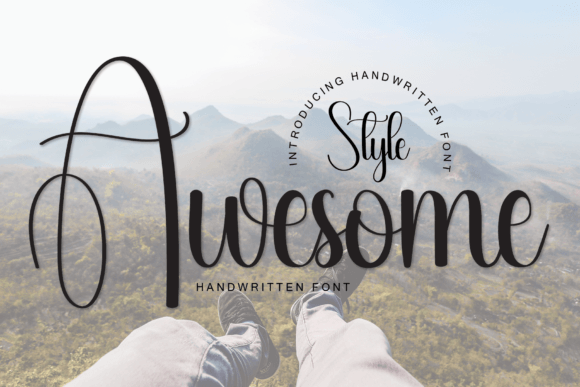
Say hello to 'Awesome Font,' the script font that will add instant charm to your designs. With its neat and casual handwritten style, this font is a perfect fit for those looking to capture a personal and authentic touch in their creative endeavors.
Dive into a world of endless possibilities with 'Awesome Font.' Its incredible versatility knows no bounds, making it suitable for a vast array of applications. Let your imagination run wild as you craft logos, invitations, greeting cards, posters, and social media graphics that leave a lasting impression.
Elevate your designs with 'Awesome Font,' a creation of the talented Roronoa zoro.S.P.D. Handcrafted with meticulous attention to detail, this font carries a unique charm that is sure to captivate your audience. Its flowing script style adds an undeniable elegance to any project, evoking a sense of warmth and authenticity.
Unlock the true potential of your creative ideas with 'Awesome Font.' Experience the joy of witnessing your designs transformed into captivating masterpieces that resonate with your audience. Embrace the power of personalization and make a bold statement with every creation.
Unleash your creativity and embark on a journey of artistic expression with 'Awesome Font.' Let your designs shine with a touch of individuality and charm. Elevate your projects to new heights and create a lasting impact that speaks volumes about your unique style.